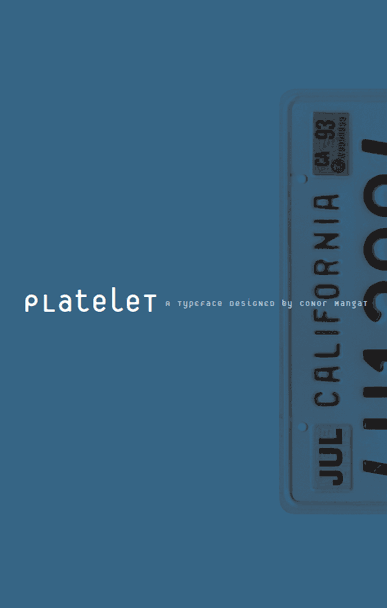
By Conor Mangat
Platelet is not just an upper and lower case alphabet in three weights; it is in fact a whole host of new opportunities for the typographically-minded driver.
The inspiration for Platelet came from the California license plate. Similar to the composing restrictions of the typewriter, the manufacture of license plates also requires the use of monospaced type; not only for mechanical requirements, but also to fulfill the need of fitting a fixed number of characters onto each plate while maximizing their legibility at a distance.
The primary purpose of a license plate, of course, is to identify a vehicle, and the California Department of Motor Vehicles has had various numbering sequences since its inception. For example, when an earlier series of license plates carrying six digits was quickly exhausted by the fast growing number of automobiles, the current seven digit model was adopted, which has undergone several schemes of number and letter arrangements. When the DMV runs out of serial numbers next time, it would be difficult to increase the number of digits to eight, since seven is the maximum number of digits that humans can reliably remember; hence the seven digit phone number. Perhaps future license plate serialization schemes will be increased by adding characters such as $%&*#@!?, or even symbols and pictures.
While Platelet is perhaps too fanciful for application on standard license plates, its usage might be suitable for the vanity plates, which the DMV offers at a higher price, to further differentiate them from standard plates. The vanity plate owner is allowed to choose a customized arrangement of characters that usually spells a name, word, visual pun, palindrome, etc. Since the characters on vanity plates usually have a meaningful arrangement, they are immediately more memorable than a string of random characters, and therefore the design of the letterforms could afford a lesser degree of legibility.
Platelet contains some unexpected solutions to the various problems facing monospaced designs. It also offers solutions that address the reduced legibility of geometric designs, which have a tendency to render many characters indistinguishable, thus reducing their function for text applications. The "m" and "w" cleverly solve the density problem of the three stems by shortening the middle one. The "i" and "l" fill their width not with the standard extended serifs, but with a large curved lead-out stroke. Another creative solution is the lowercase "b," which incorporates the upper case form within the lower case character. This increases the recognition factor of the "b," which would otherwise be very similar to other characters, such as the "d," due to the geometric rigidity of Platelet's letterform construction.